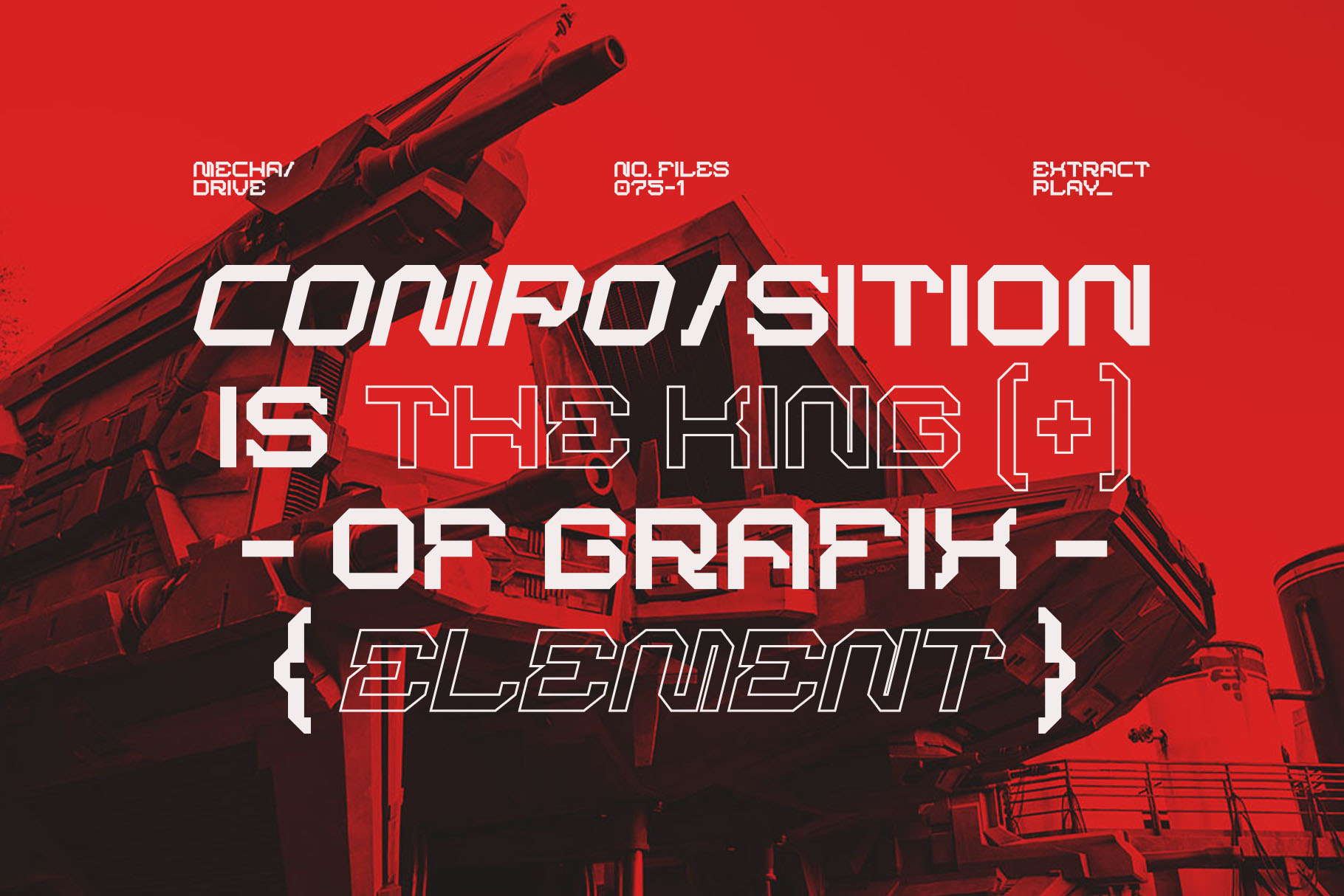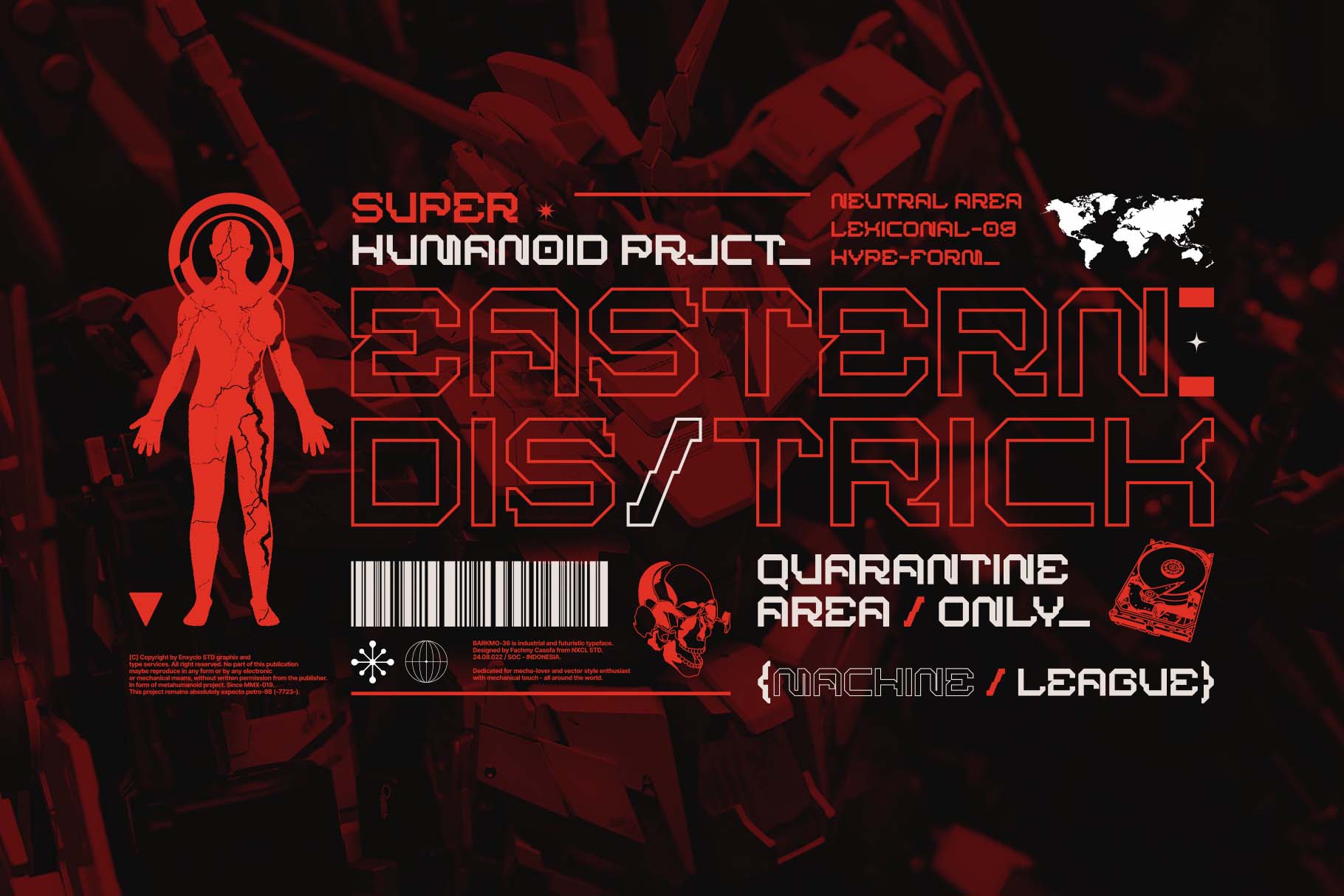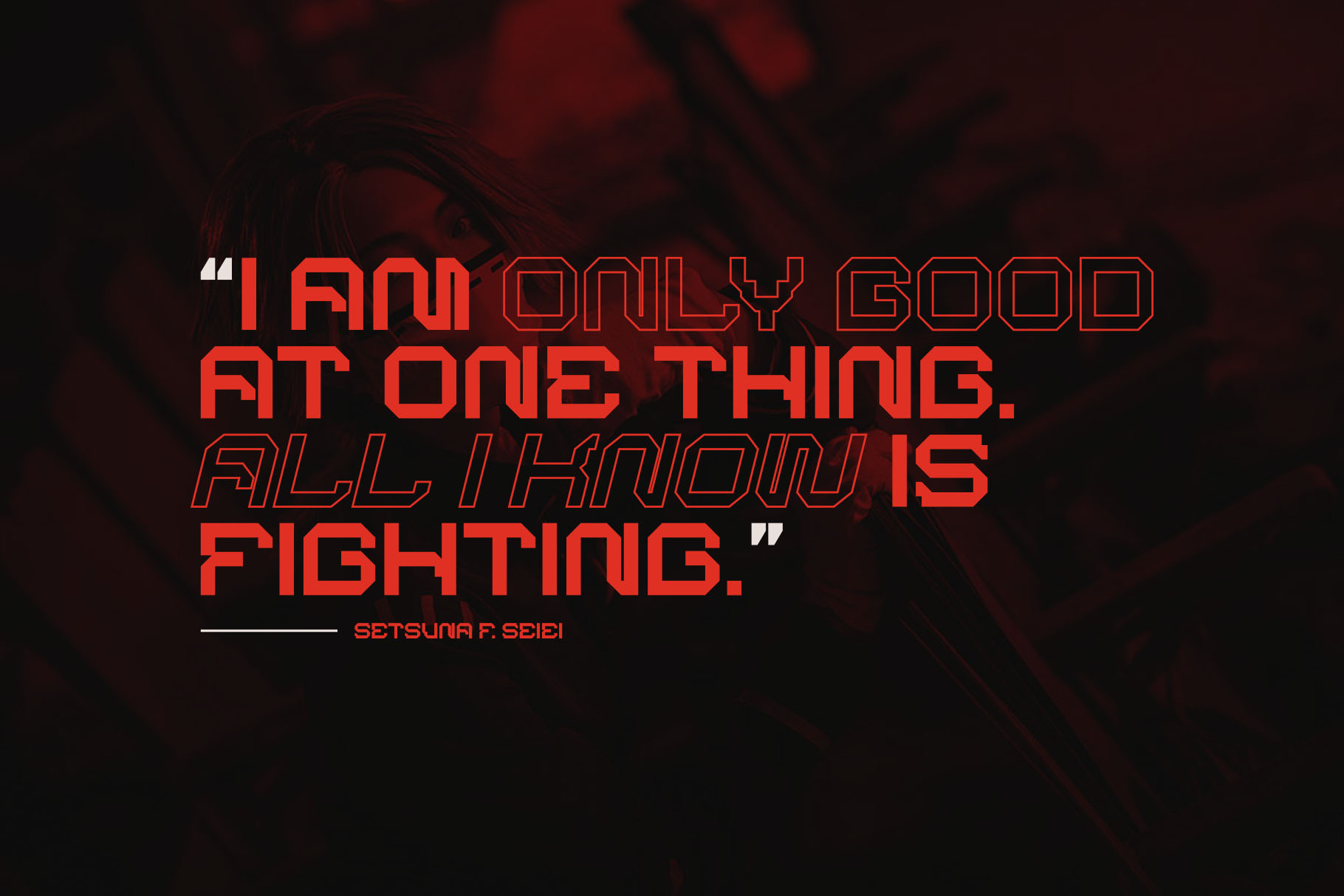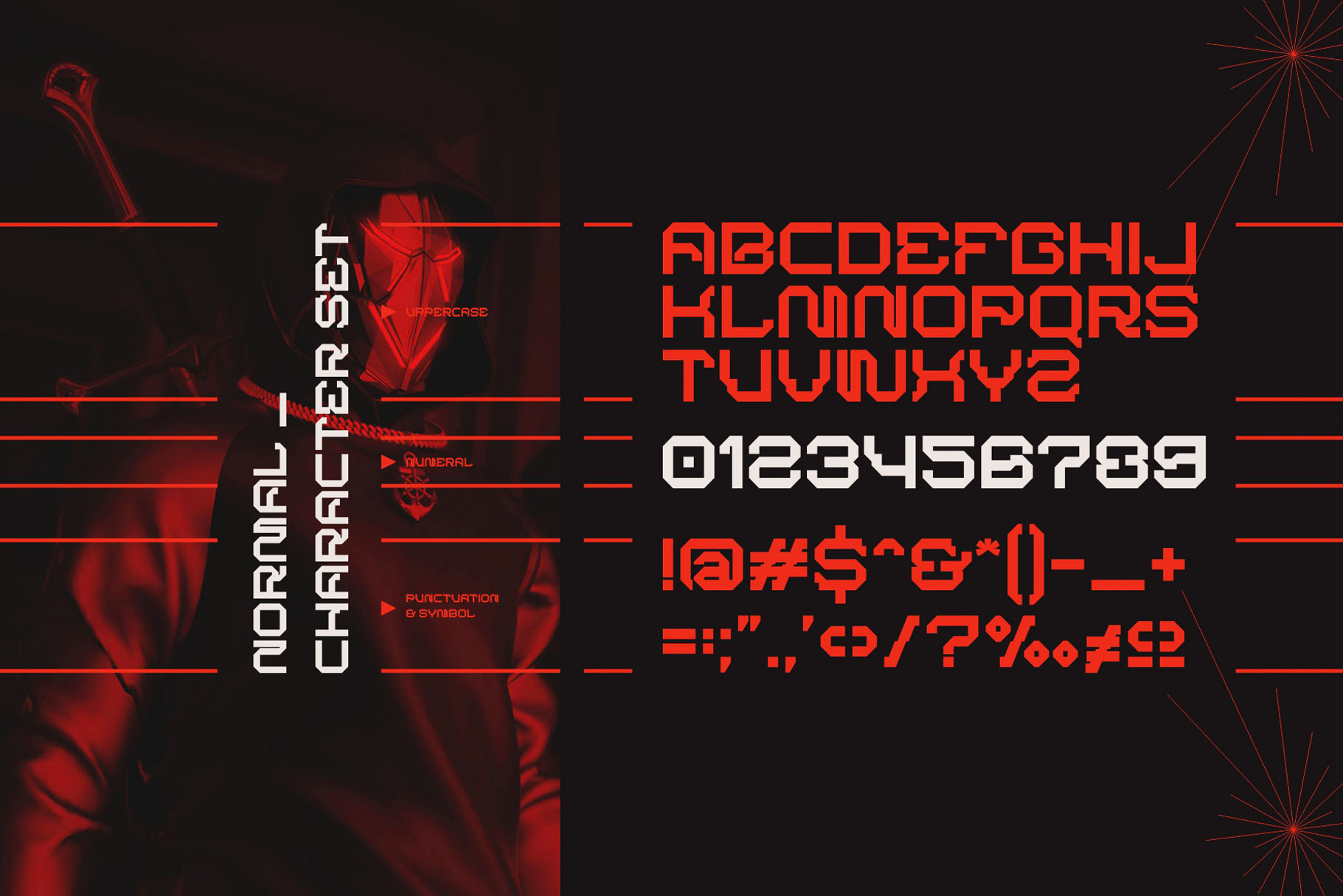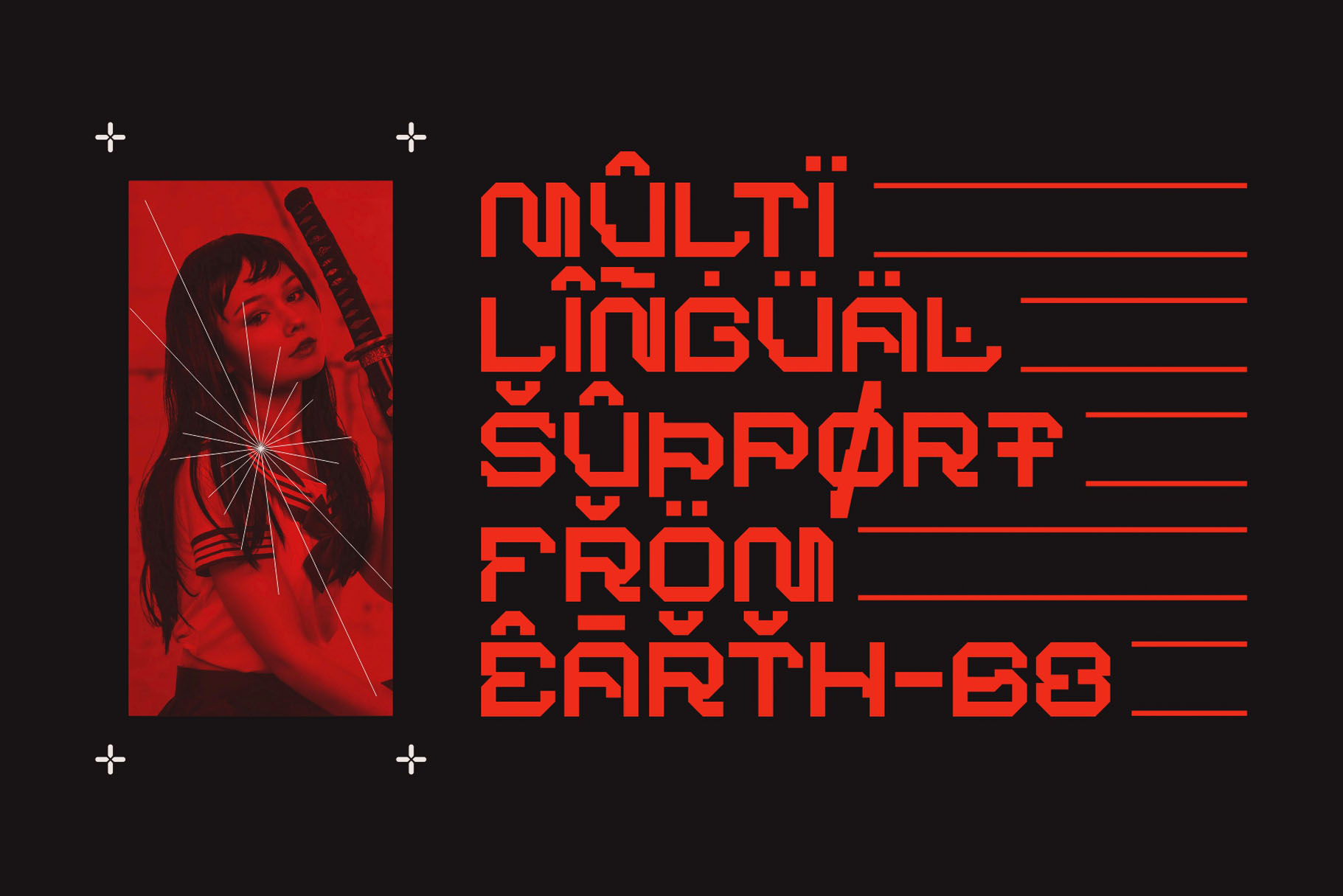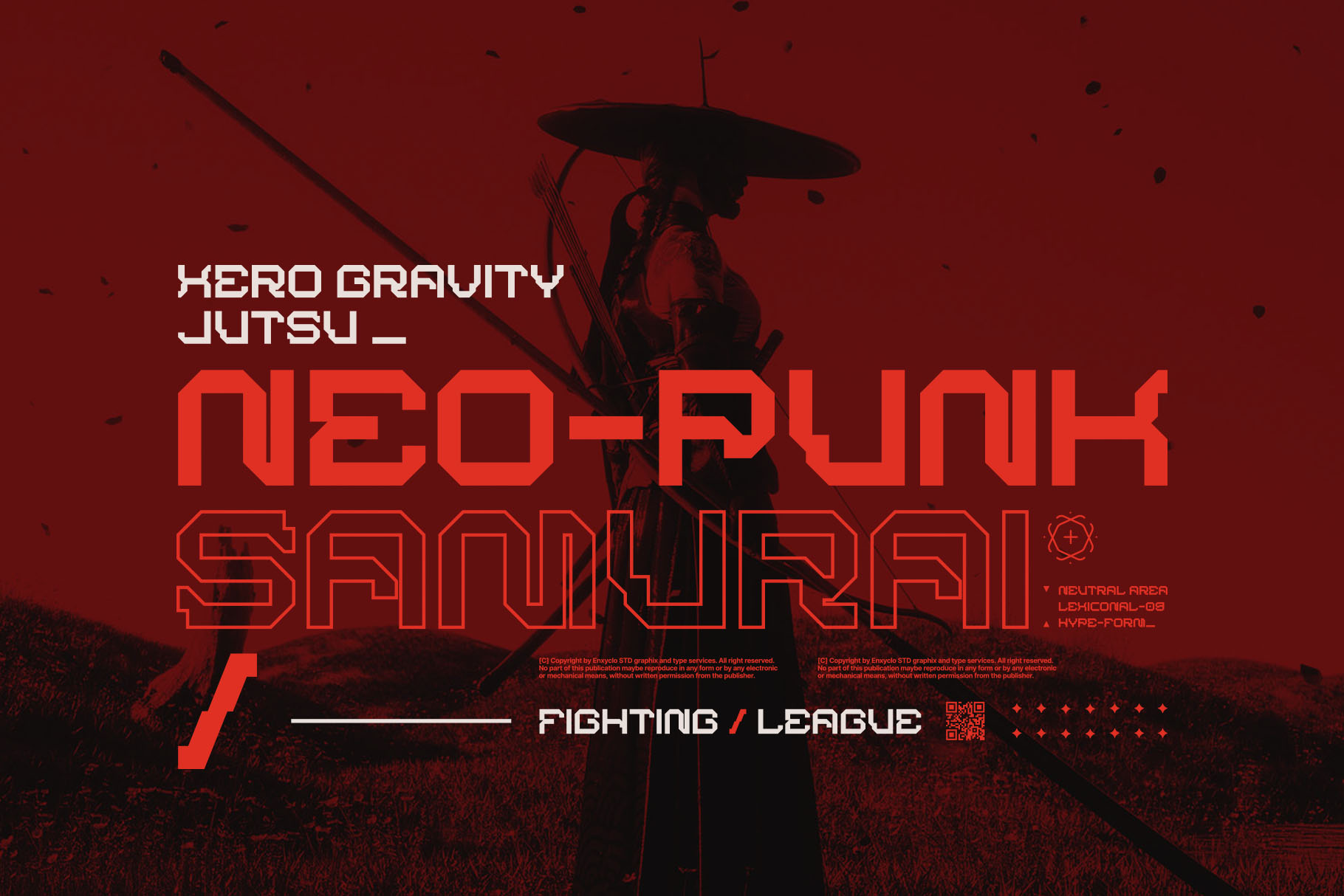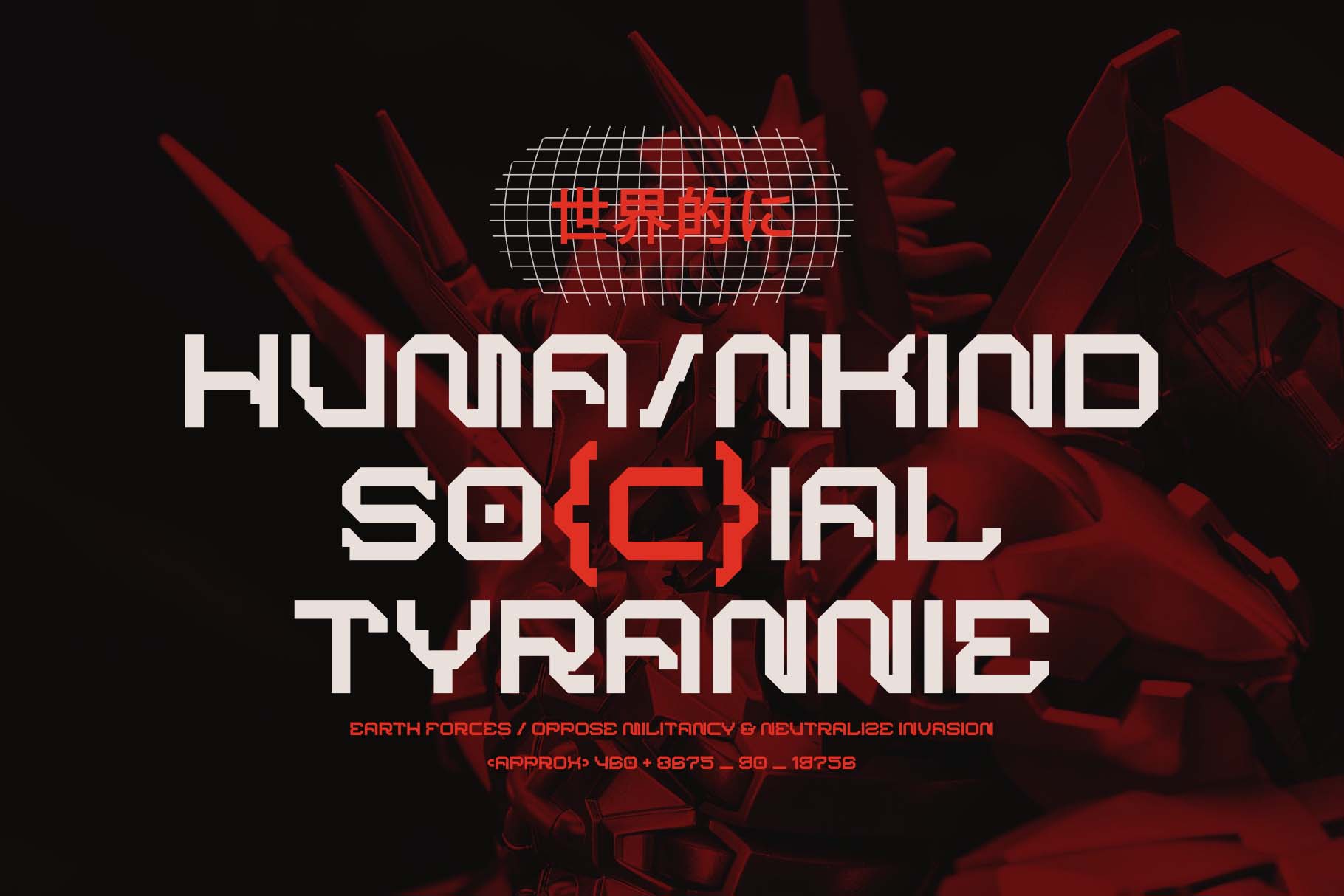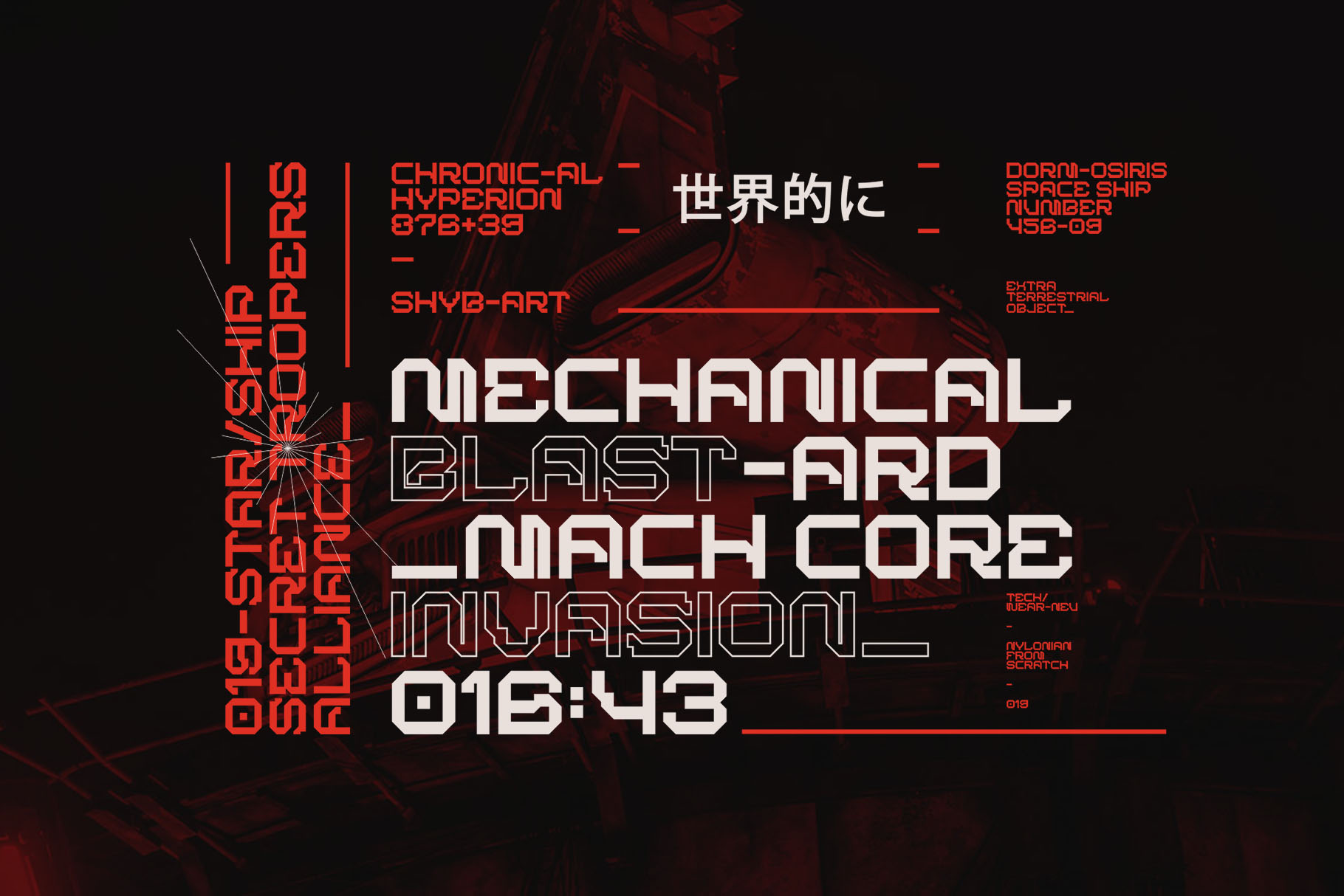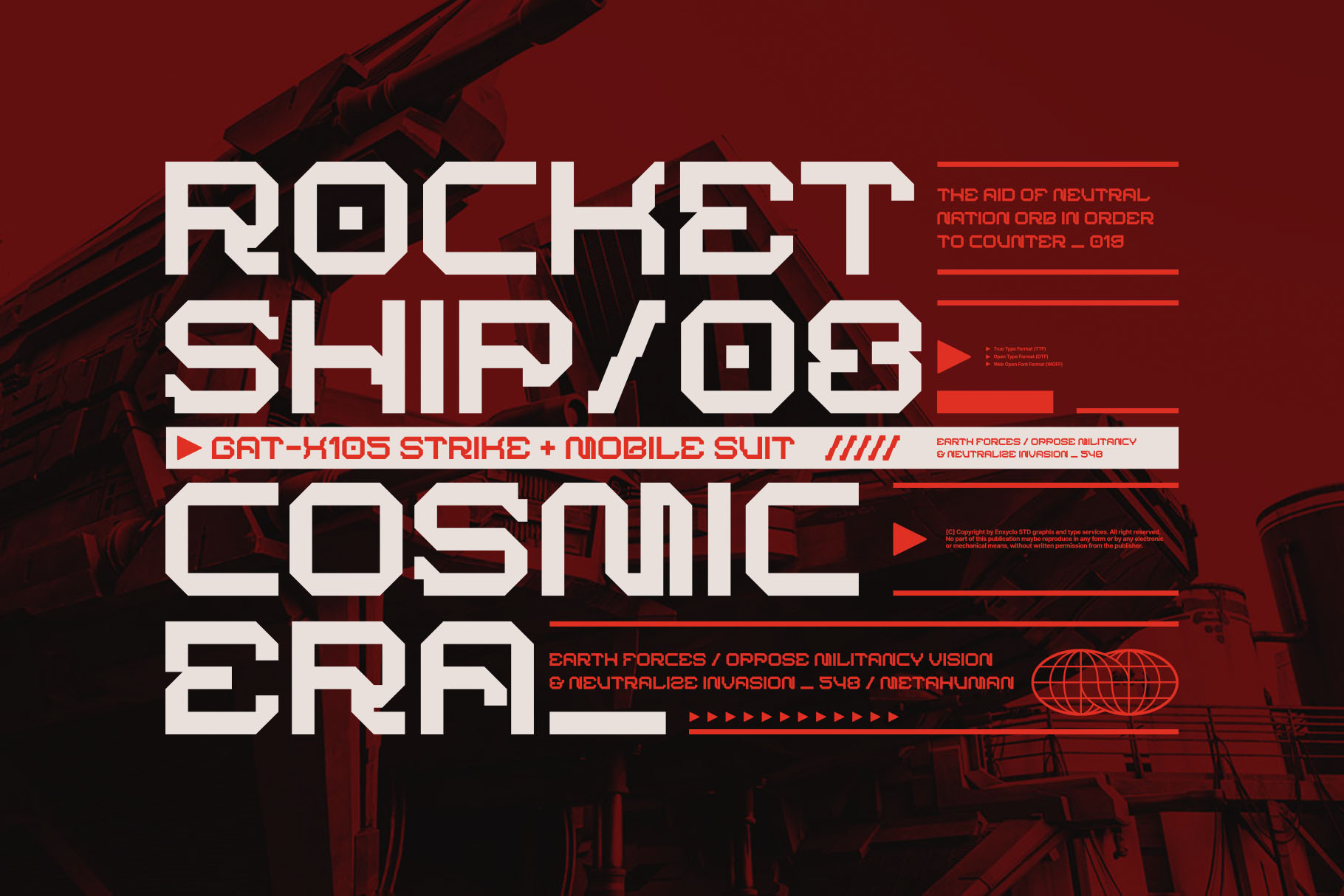
Barkmo36 – Futuristic Techno Cyberpunk Font
BARKMO-36 is not your ordinary font; it’s a cyberpunk futuristic techno mecha font with 4 styles (Regular, Slanted, Outline, Outline Slanted) that takes your creativity to the next level. Highly inspired by industrial and mecha-robotic cyberpunk vibes. Its futuristic aesthetics bring a whole new dimension to your designs, making them stand out. Whether you’re working on a website, poster, logo, or any other project, this font adds that extra touch of innovation and sophistication.
Cyberpunk–a genre that started in science fiction and has left its indelible mark on various aspects of pop culture, including design. The textures of Cyberpunk are hard to ignore. Its intrinsic appeal lies in the paradoxical blend of the advanced and the old-fashioned, the bright and the brooding, the hopeful and the despairing. And one way this vibe gets communicated powerfully is through this font–the heroes of visual communication if you will.
Whether you’re a graphic designer working on a futuristic project, a film-maker creating titles for your next sci-fi epic, or simply a fan of Cyberpunk aesthetics, this font will serve as your guide, illuminating your path in the shadowy streets of this unique design language.
Using this beautiful futuristic font makes your project an attention-grabbing masterpiece. It can instantly captivate your audience and leave a lasting impression. It’s the perfect choice for those who dare to be different and want to break away from the ordinary.
If you’re wondering how to utilize this font best, check out the previews. They’ll give you some incredible inspiration for incorporating this font into your designs. From sleek and modern website to eye-catching posters, the possibilities are endless.
Masterfully designed to become a true favorite, this font has the potential to bring each of your creative ideas to the highest level! It was purposely crafted to be used in large point sizes, although it doesn’t lose its magic in small point sizes. This font will be an incredible asset to your fonts’ library, as it has the potential to elevate any creation. With this beautiful font, absolutely you can make your project stand out from the rest. Let your imagination run wild as you envision the impact this great typeface can have on your project.
4 Styles: Regular, Slant, Outline, & Outline Slant
Contains 235 Glyphs for Each Style (Total: 940 Glyphs)
Uppercase, Numeral, Punctuation & Symbol
- Multilingual support.